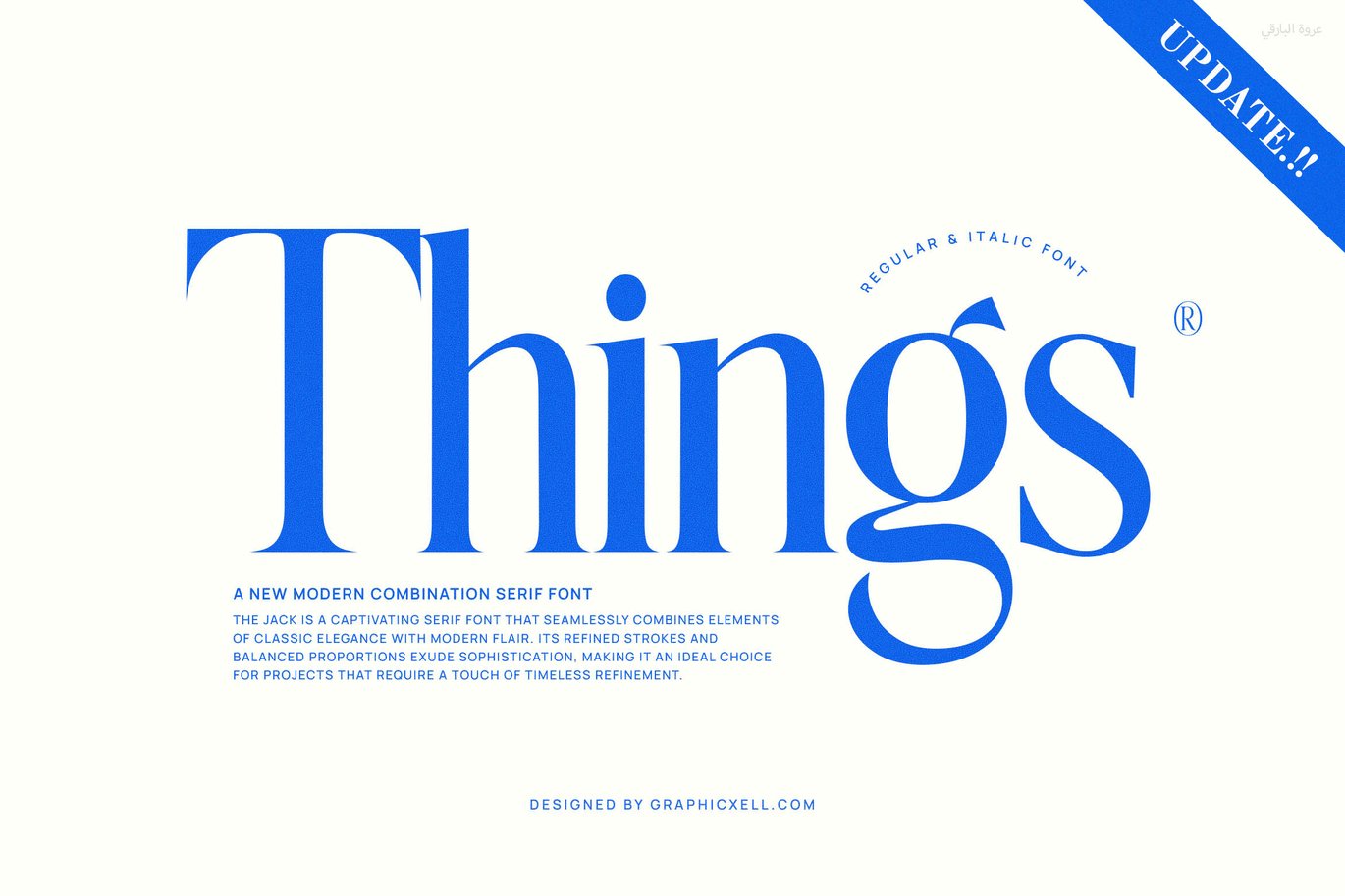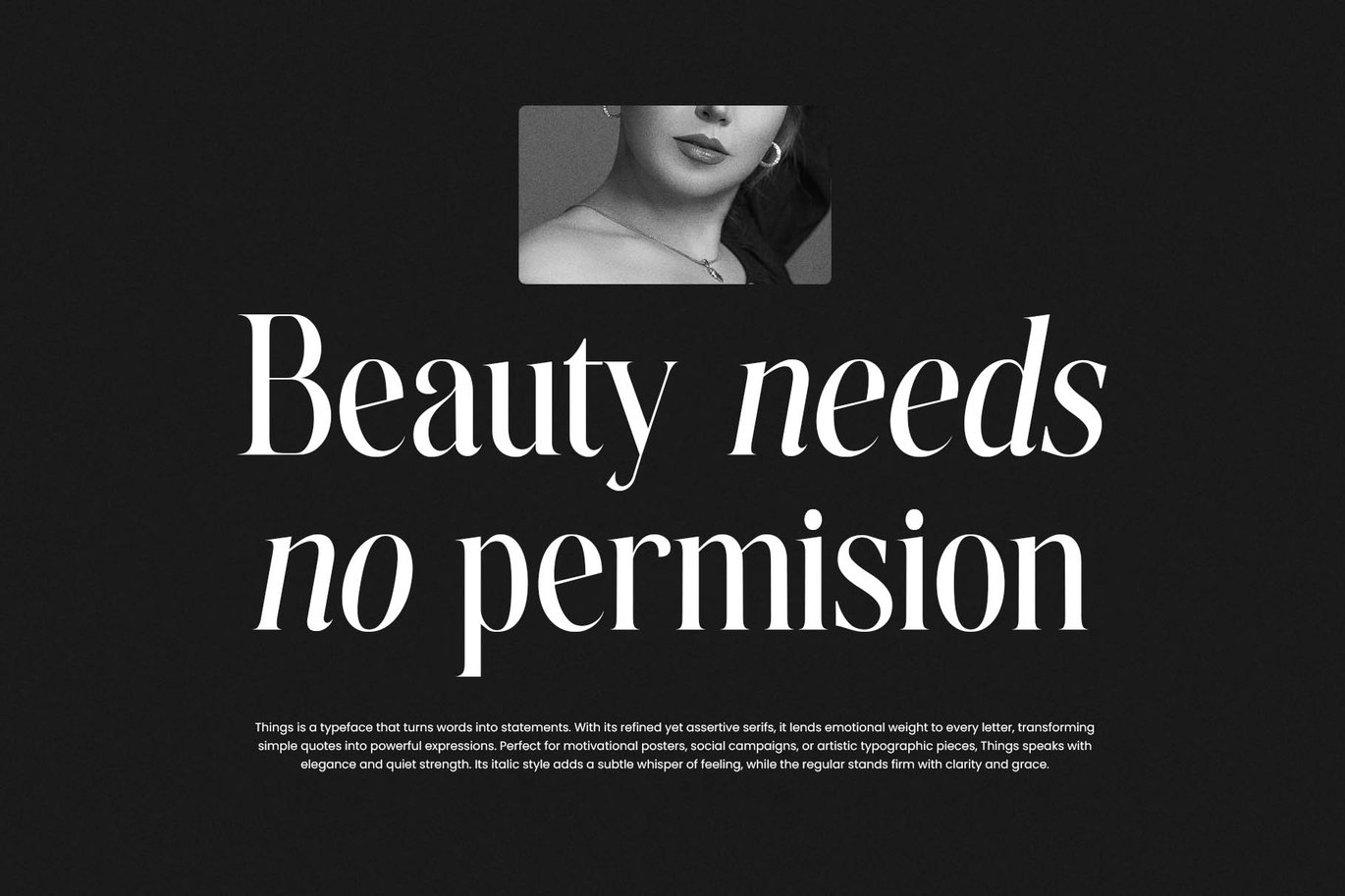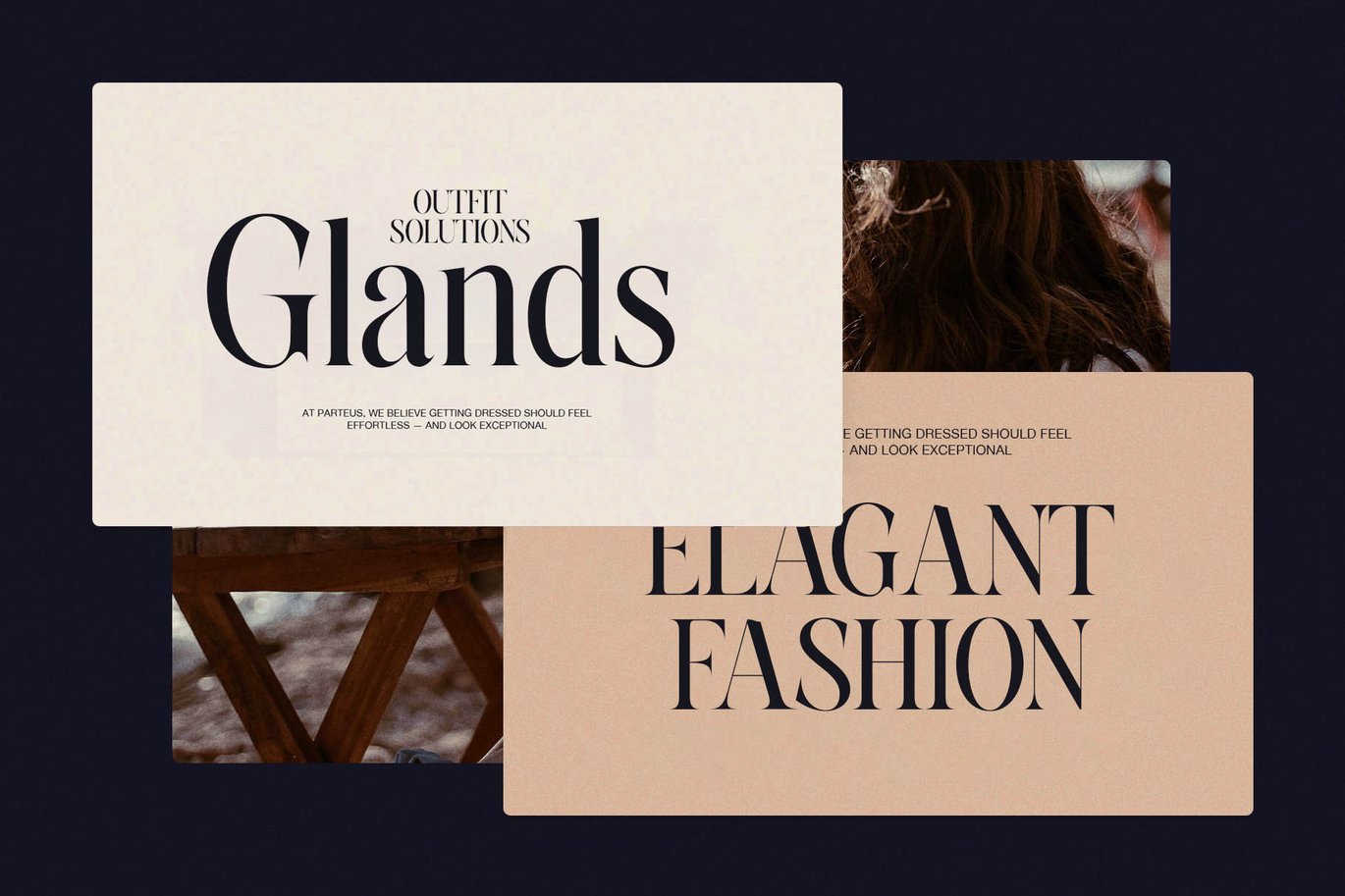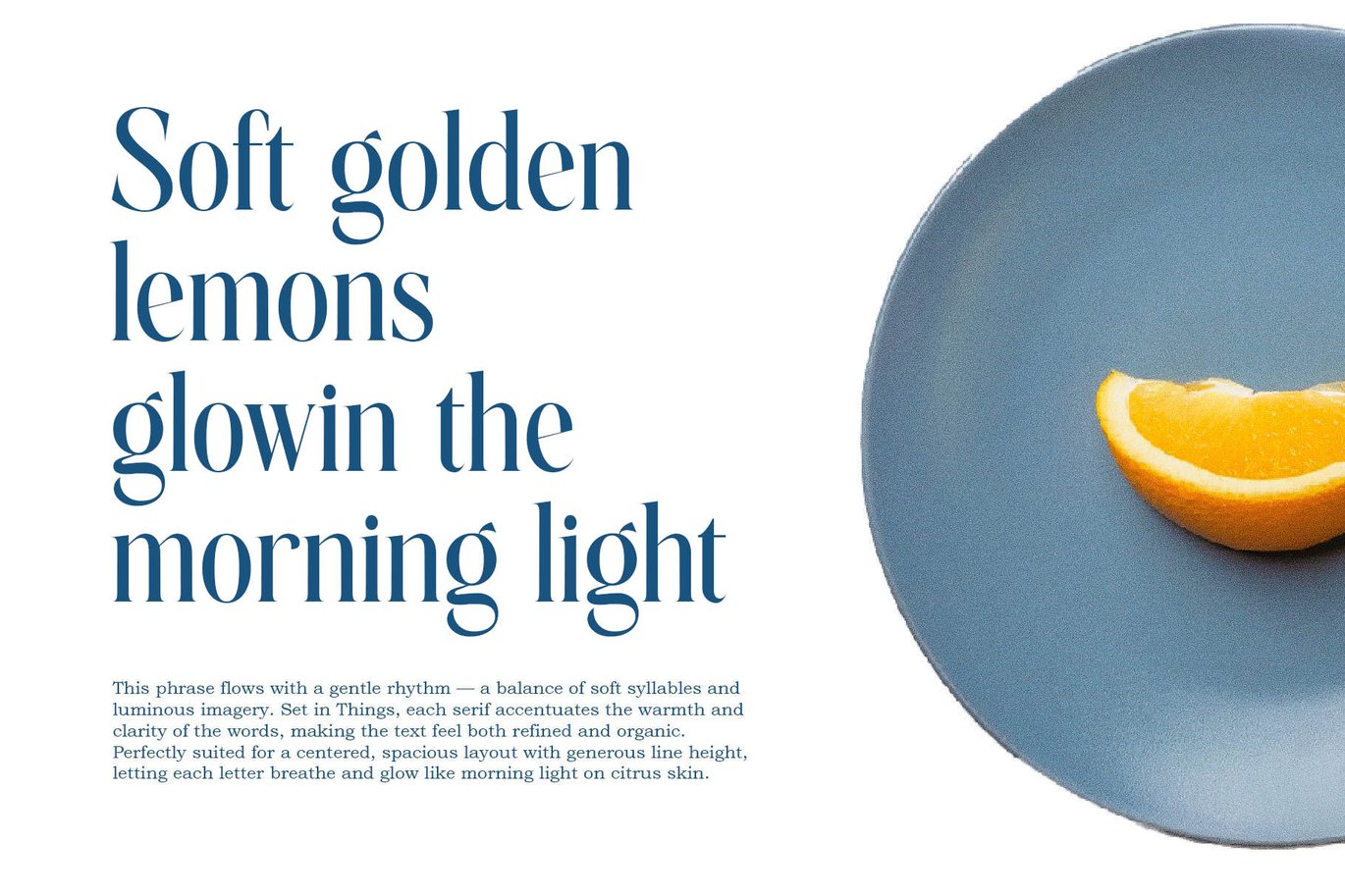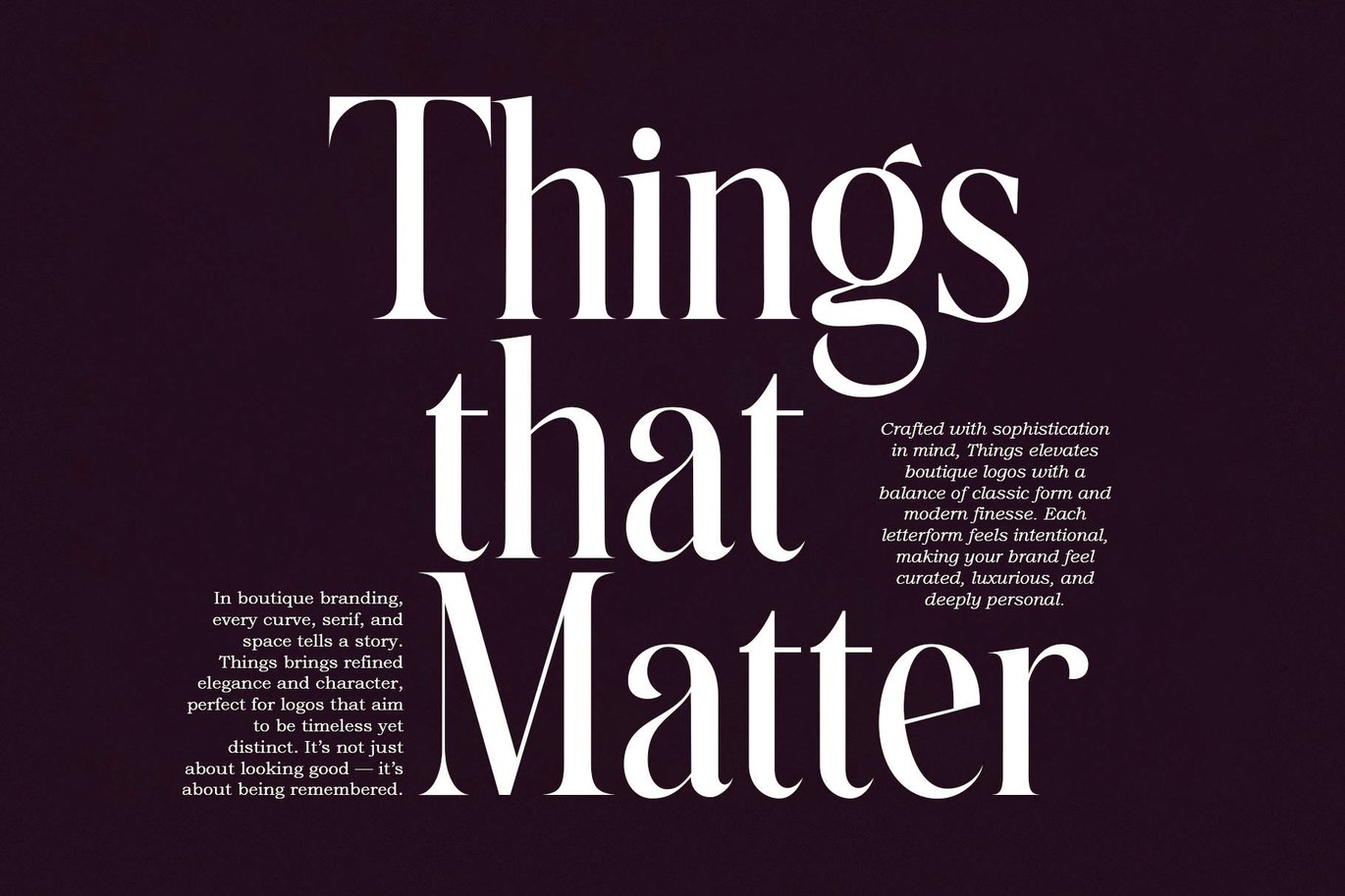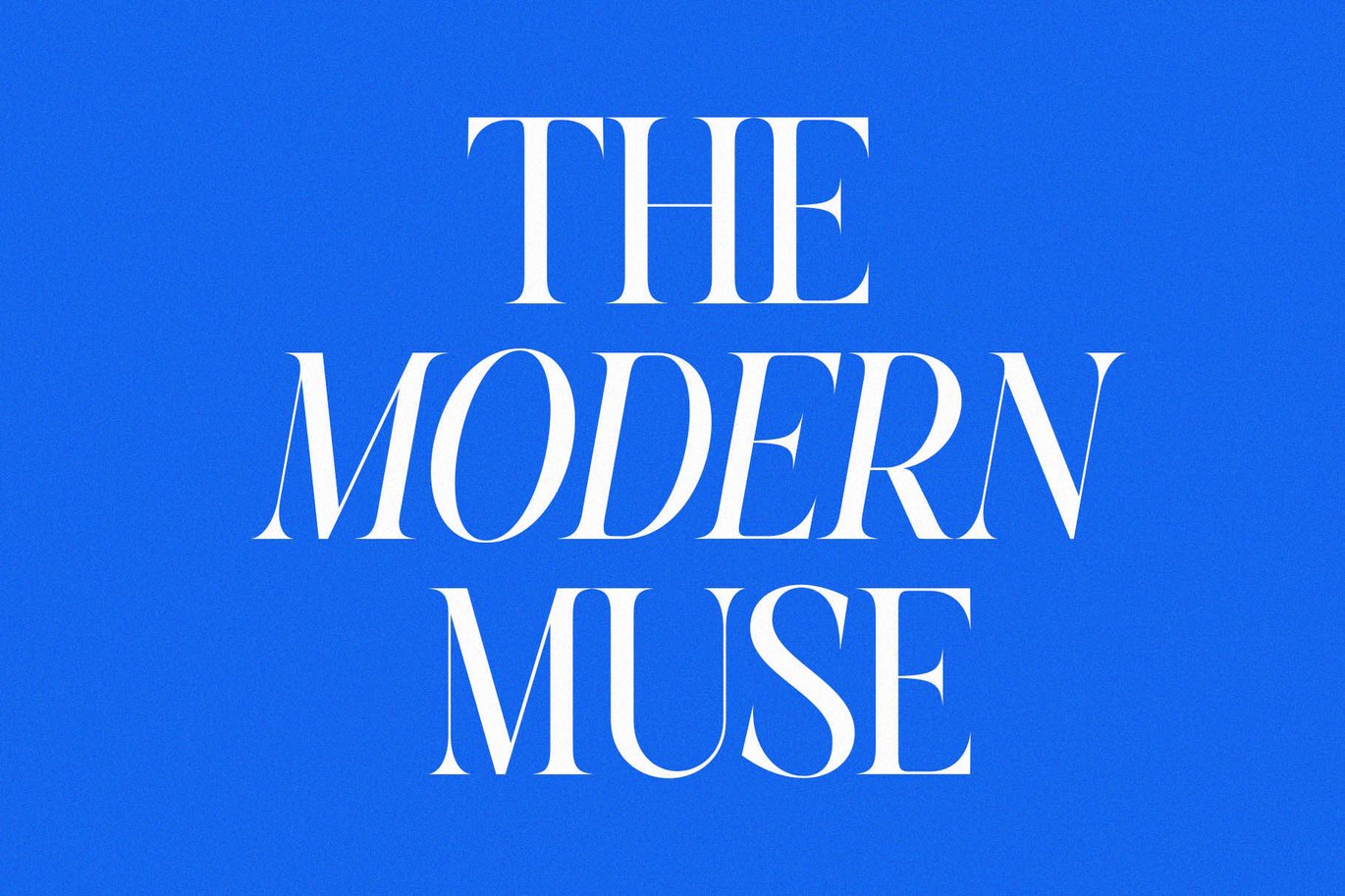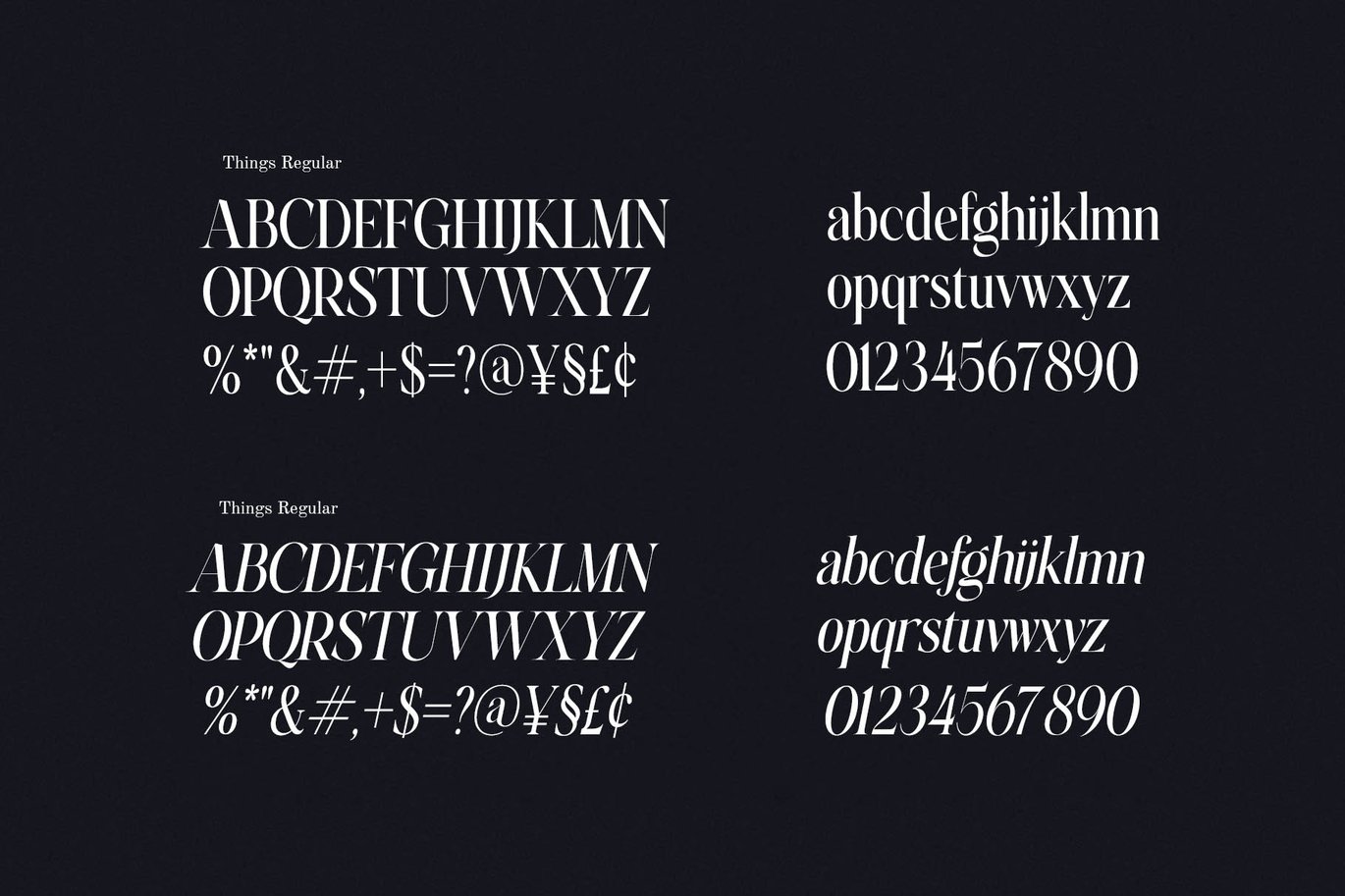
Things - Modern Serif Font
Things is a modern serif font family that brings elegance and versatility to your creative projects. Its clean lines and refined details fit both classic and contemporary designs. You can use this font for branding, editorial work, invitations, and digital content to achieve a polished and professional look.
The font balances traditional serif features with a fresh, modern twist. Designers crafted the letterforms carefully to ensure high readability and style. This makes Things ideal for headlines as well as body text. Because it adapts well across various media, you can confidently use it in print magazines, websites, or social media.
Thanks to its structured shapes and smooth curves, Things stands out without overwhelming your design. Therefore, it suits projects that need clarity and personality. Additionally, its well-proportioned characters pair beautifully with sans serif fonts, which helps you create strong visual contrasts.
Designers will appreciate the family’s multiple weights and styles, which offer flexibility to create consistent and engaging typography. Moreover, this font family helps creative professionals blend modern appeal with timeless elegance.
Key features include:
• Multiple weights and styles for design flexibility
• Elegant serif details combined with modern simplicity
• High readability for print and digital projects
• Perfect for branding, editorial, invitations, and web use
Using Things, you elevate your work with clean, stylish typography. This font family provides an excellent tool to create readable, attractive designs that leave a lasting impression. If you want a serif font family that merges tradition with modern design, Things fits perfectly.